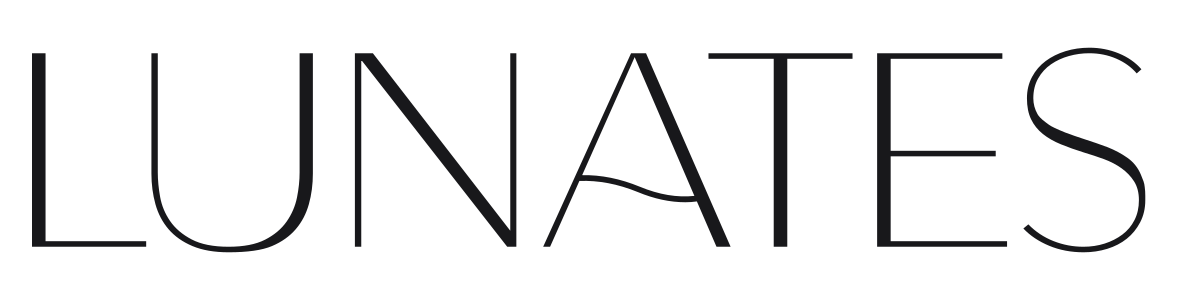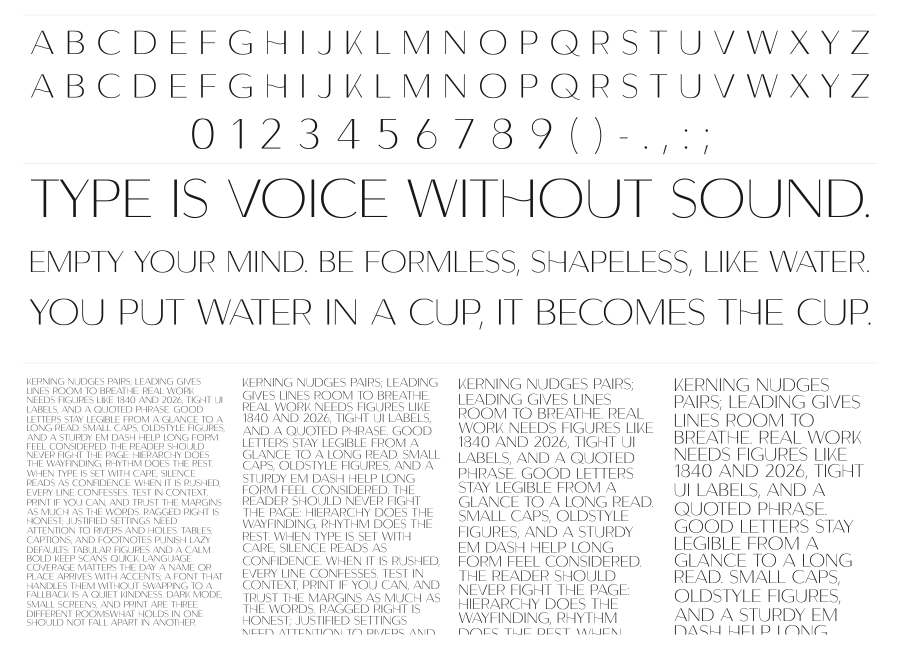
Lunates
Lunates is an ultra-light geometric sans-serif with hairline-thin strokes and wide, open proportions. The near-weightless construction gives it an airy elegance that reads immediately as high-end, drawing on modernist and art-deco geometric traditions. It carries itself best at large display sizes where the fine strokes can breathe.